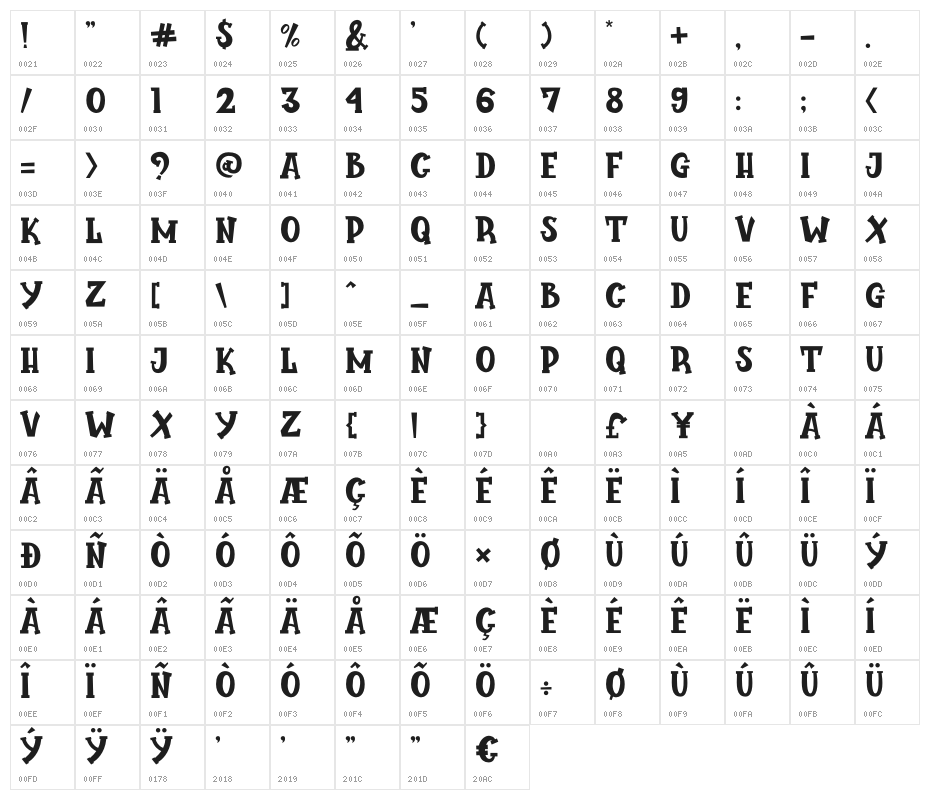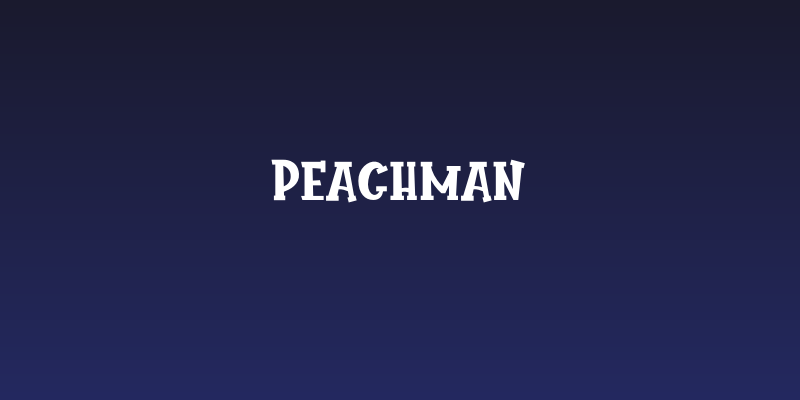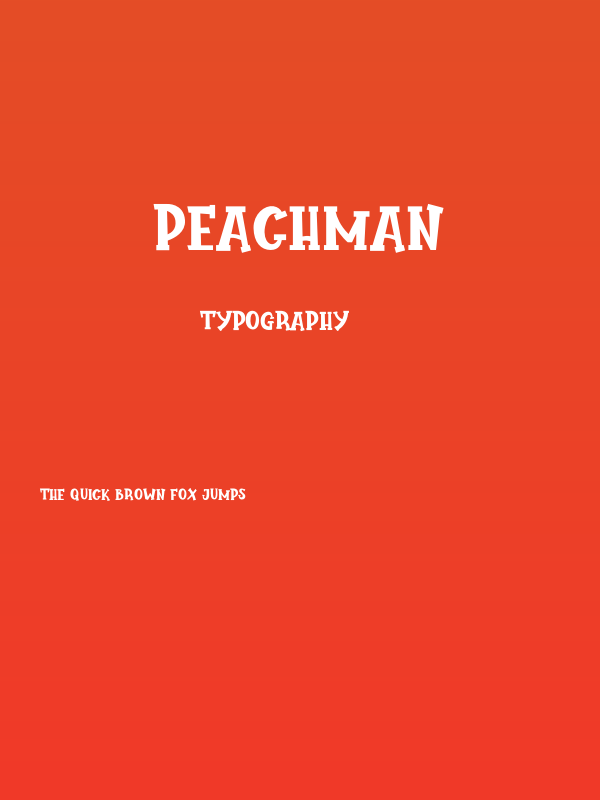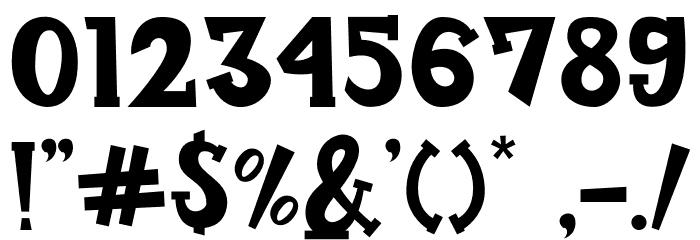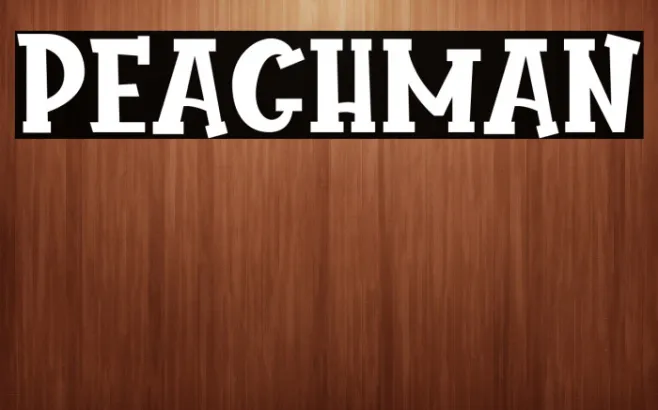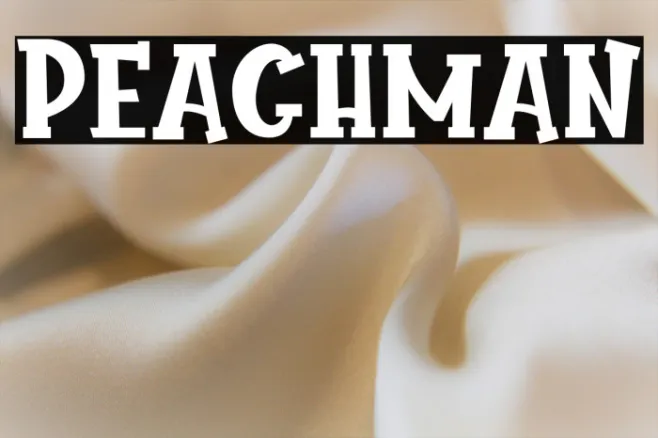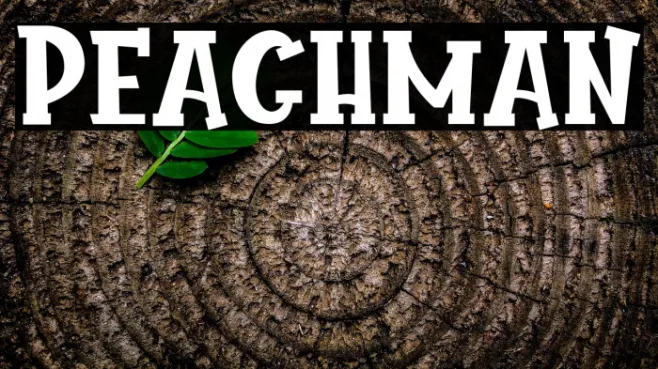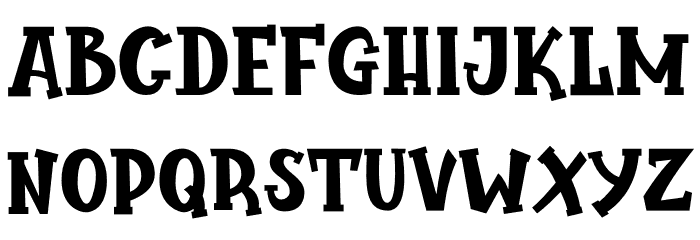
Peachman Font
Peachman Description
This font features a bold and playful design with exaggerated serifs and a slightly whimsical character. The letters are thick and robust, making them highly legible and impactful. The uppercase and lowercase letters maintain a consistent style, with a slight slant that adds a dynamic feel. Numbers and special characters are designed to match the boldness of the alphabet, ensuring a cohesive look across all text. The font's unique style makes it stand out, perfect for projects that require a touch of fun and creativity.
| Proposed Projects | Ideal for children's books, playful branding, posters, and creative headlines. |